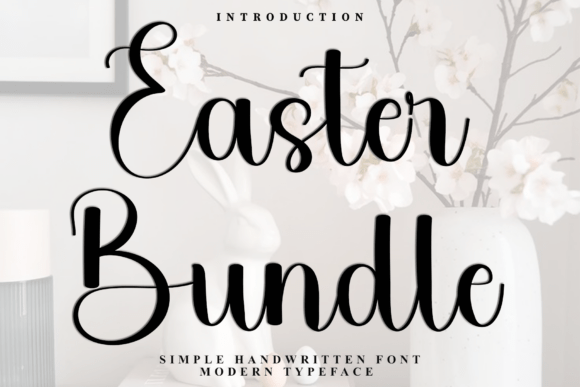
Easter Bundle Font: Elevate Your Designs with a Soft and Unique Touch
Are you looking for a font that can add a special touch to your designs, crafts, and creative projects? Look no further than the Easter Bundle Font, a beautiful and eye-catching typeface designed with a soft, unique touch. Its distinctive strokes give it a special character, making it meaningful and versatile for future use. In this article, we’ll explore the features and benefits of the Easter Bundle Font, and how it can enhance your designs and appeal to a wide range of audiences.
A Versatile Font for Various Design Projects
The Easter Bundle Font is perfect for a variety of design projects, including crafts, and other creative works. Its unique and soft texture makes it ideal for designs that require a personal touch, such as greeting cards, invitations, and social media graphics. The font’s versatility also makes it suitable for use in various industries, including fashion, beauty, and lifestyle.
Natural Font Style for a Wide Range of Products
The Easter Bundle Font has a natural font style that is ideal for a wide range of products, from digital products to print materials. Its soft and unique texture makes it perfect for designs that require a personal touch, such as:
- Fashion and beauty branding
- Lifestyle and wellness marketing materials
- Crafts and DIY projects
Whether you’re designing for digital or print, the Easter Bundle Font is a versatile typeface that can elevate your designs and make them appealing to many audiences.
The Easter Bundle Font offers a range of benefits for designers and crafters, including:
- Unique and eye-catching designs: The Easter Bundle Font’s soft and unique texture makes it perfect for creating designs that stand out from the crowd.
- Versatility: The font’s compatibility with various applications and industries makes it a versatile typeface that can be used in a range of design projects.
- Time-saving: With the Easter Bundle Font, you can create professional-looking designs in no time, saving you time and effort.
In conclusion, the Easter Bundle Font is a beautiful and eye-catching typeface that can elevate your designs and make them appealing to many audiences. Its soft and unique texture, versatility, and PUA encoding make it perfect for a wide range of design projects, from crafts and DIY projects to fashion and beauty branding. Whether you’re a designer or crafter, the Easter Bundle Font is a must-have typeface that can help you create unique and eye-catching designs that stand out from the crowd.